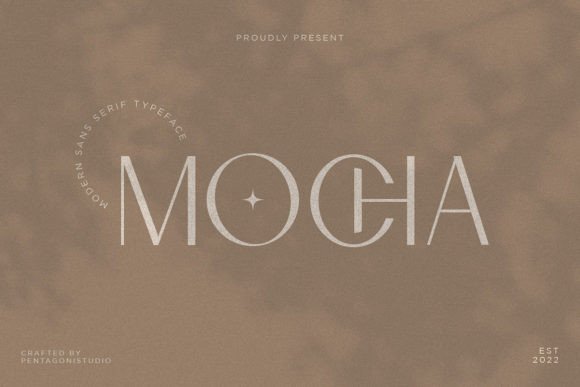
Introducing Mocha Font, the ultimate choice for those seeking a chic and stylish sans serif font. Crafted with utmost precision by Pentagonistudio, Mocha Font is designed to captivate and inspire. With its versatile style and endless possibilities, this font is the perfect companion for all your creative endeavors.
Are you searching for the best font to elevate your magazine layout? Look no further! Mocha Font is the answer to your prayers. Its impeccable design and attention to detail make it the ideal choice for creating stunning magazine spreads that will leave your readers spellbound. Let Mocha Font take your publication to new heights of sophistication and elegance.
But Mocha Font is not limited to just magazines. Its beauty knows no bounds. Imagine the exquisite wedding invitations you can create with this font. The sleek and modern lines will add a touch of class to your special day, making it truly unforgettable. Your guests will be in awe of the elegance and charm that Mocha Font brings to your wedding stationery.
Not only that, but Mocha Font is also perfect for all your stationary art needs. Whether you're designing greeting cards, posters, or prints, this font will infuse your creations with a sense of style and flair that is unmatched. Let your imagination run wild as you explore the endless possibilities that Mocha Font offers.
In the age of social media, standing out is more important than ever. Mocha Font understands this, which is why it is the ultimate choice for eye-catching social media posts. Make your Instagram feed pop with bold and captivating typography that demands attention. With Mocha Font, your posts will be the talk of the digital town.
And the best part? Mocha Font is PUA encoded, granting you seamless access to all the glyphs and ligatures. Say goodbye to limitations and hello to endless creativity. Unlock the full potential of this font and let your imagination run wild.
In conclusion, Mocha Font is not just a font - it's a gateway to creativity and inspiration. Fall in love with its chic and stylish design, and let it be the driving force behind your next creative masterpiece. Whether you're designing magazine layouts, wedding invitations, stationary art, or social media posts, Mocha Font will elevate your creations to new heights. The possibilities are endless, and it all starts with Mocha Font.